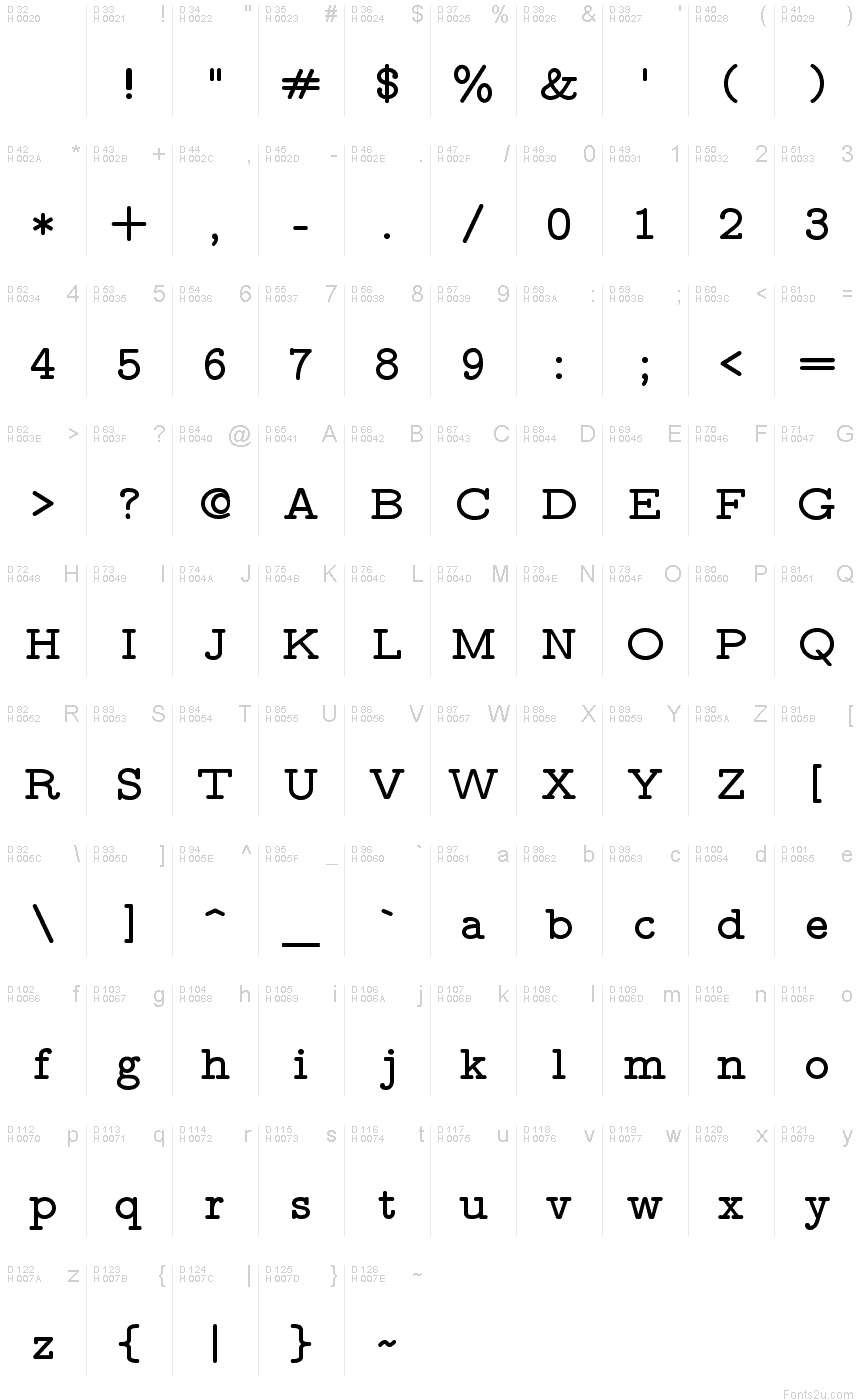
LMMonoPropLt10-Bold by B. Jackowski and J. M. Nowacki of the TeX users groups is a free slab serif font with a sturdy typewriter-like build. Broad capitals and softly bracketed serifs give the lettering an even, measured pace.
Editorial headlines are its clearest role, especially for technical publications and academic covers that want a restrained print character. It can also suit software packaging, conference posters, and institutional branding. The squared capitals and rounded lowercase forms connect those settings to diagrams, tables, and other precise graphic material.